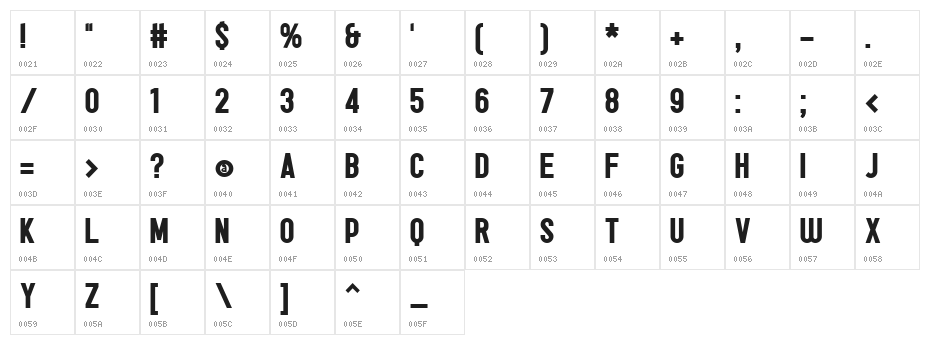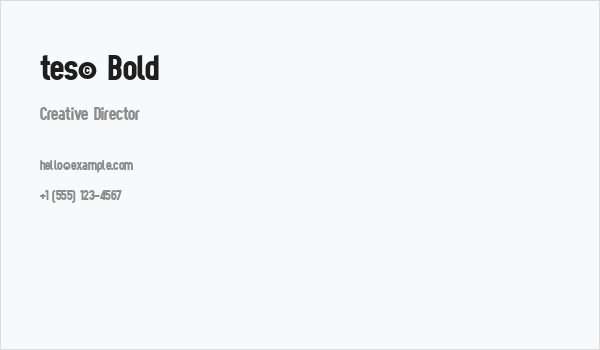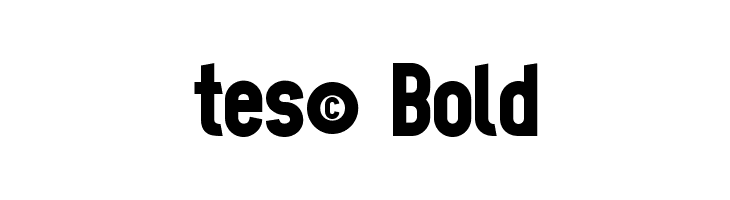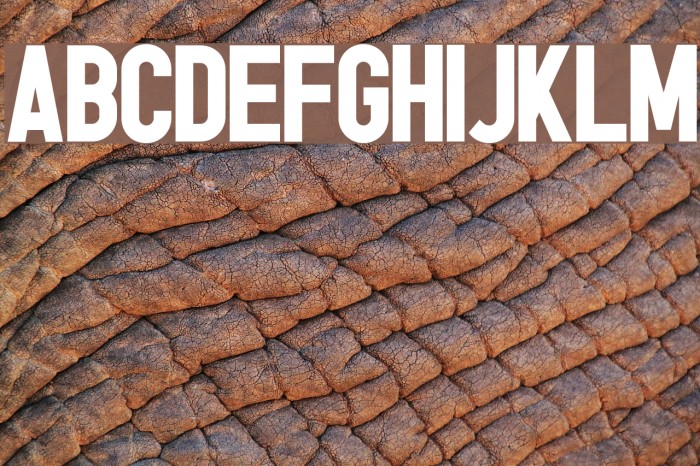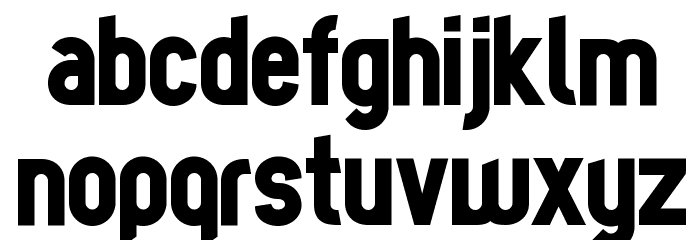
tes© Bold Font
tes© Bold Description
This bold and impactful font features strong, thick strokes that convey a sense of confidence and modernity. The uppercase and lowercase letters are well-proportioned, maintaining a consistent weight throughout. The numerals are clear and easily distinguishable, making them suitable for various applications. Special characters are included, enhancing the font's versatility. The overall design is clean and straightforward, with a slight geometric influence that adds a contemporary touch. This font is ideal for projects that require a bold statement, such as headlines, posters, and branding materials.
| Proposed Projects | Ideal for headlines, posters, branding, and any project needing a bold statement. |